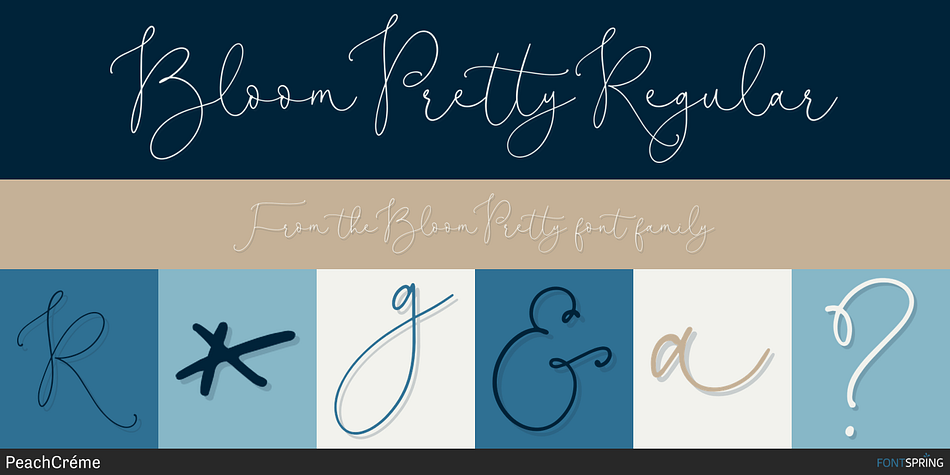
Bloom Pretty Regular
Bloom Pretty is a script font family published by PeachCréme.
DARN CUTE CALLIGRAPHY VOL.21
Copy & paste and see the magic:
-bloom&pretty-
-lovely%pumpkin-
We are in love. In love with our family, pets, plants, country. Without love the life is meaningless. This font is created to show a little part of magical feelings that our heart carry.
Ta da! Introducing Bloom Pretty. Wedding monograms, logos, cosmetic packaging & lots of other projects can be done with this font. It has lowercase beginning and ending swashes, lowercase heart and bow connecting swashes.
type & for connecting heart. Test:  alicia&martin
type % for connecting bow. Test:  alicia%martin
type - before the lowercase letter for beginning swash Test: -lovely
type - after the lowercase letter for ending swash Test: lovely-